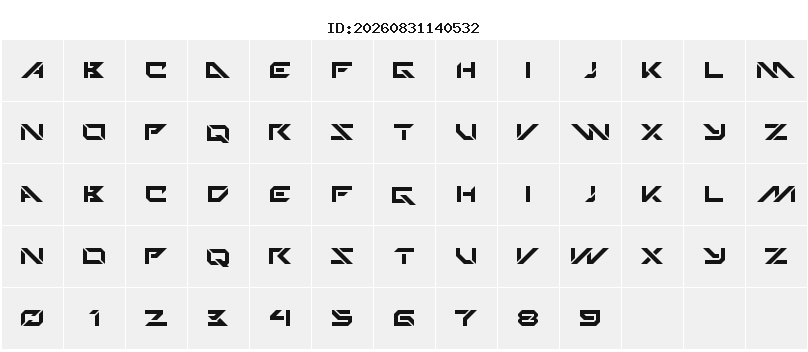
Techno Hideo Preview
• Font Name: Techno Hideo
• Full Font Name: Techno Hideo
• Designer: TracerTong
• Manufacturer: TracerTong
About Techno Hideo.ttf
Techno Hideo.ttf is a modern, elegant sans-serif font designed for ultimate readability and visual harmony. Perfect for branding, headlines, web design, and print materials.